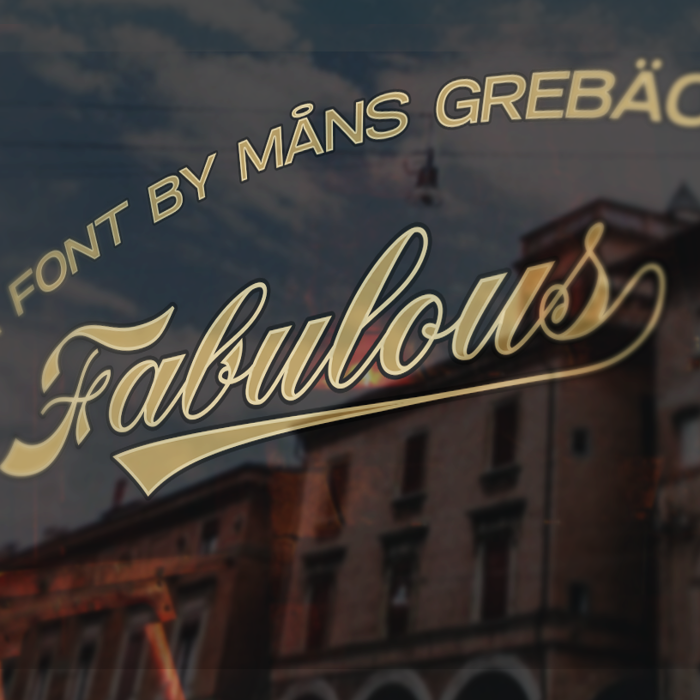
Fabulous Font
Write _ after a word to get a swash.
Example: Fabulous_
With ligatures activated, write _ and a number for more swashes.
Example: Lovely_5 Font_2